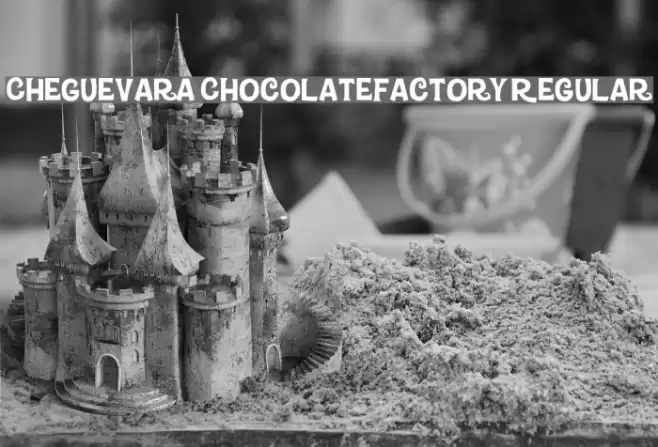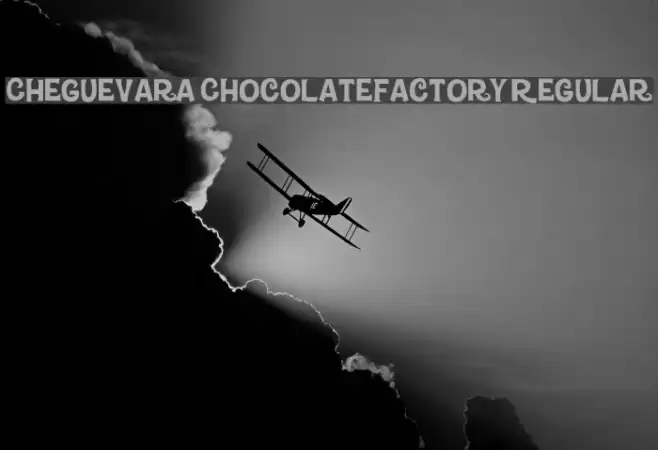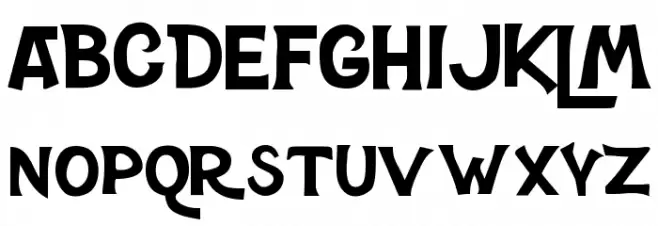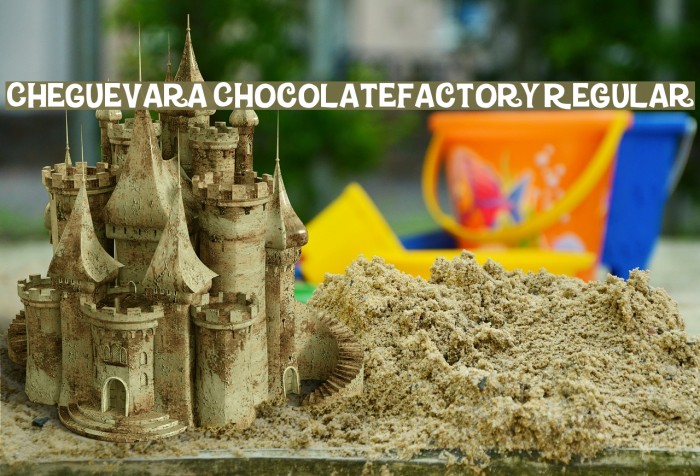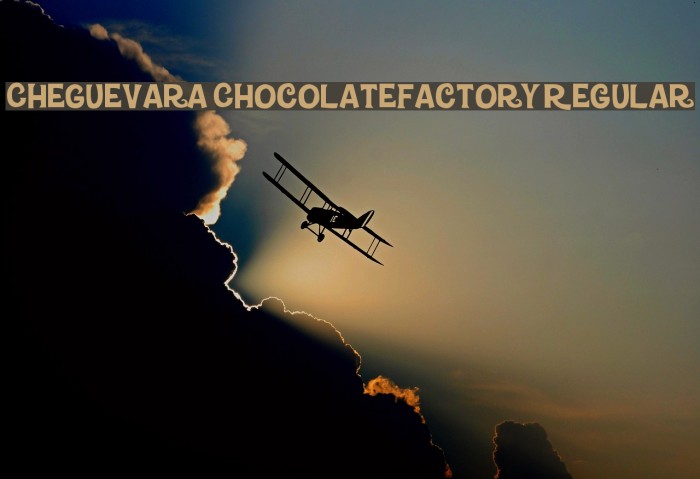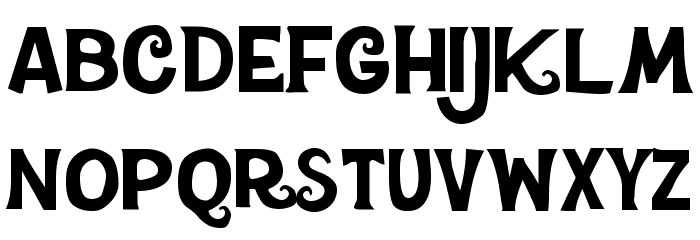
CheGuevara ChocolateFactory Regular Font
CheGuevara ChocolateFactory Regular Description
This font features a bold and playful design with a unique, whimsical flair. The characters are crafted with a mix of sharp angles and smooth curves, giving it a lively and dynamic appearance. The uppercase letters have a strong presence, while the lowercase letters maintain a consistent style with a touch of eccentricity. The font includes a variety of special characters that enhance its decorative nature. Its bold strokes and distinctive shapes make it stand out, ideal for creative and eye-catching designs.
A bold, playful font with whimsical curves and sharp angles from Uncategorized fonts.
- Proposed Projects: Ideal for children's book covers, playful branding, creative posters, and eye-catching headlines.